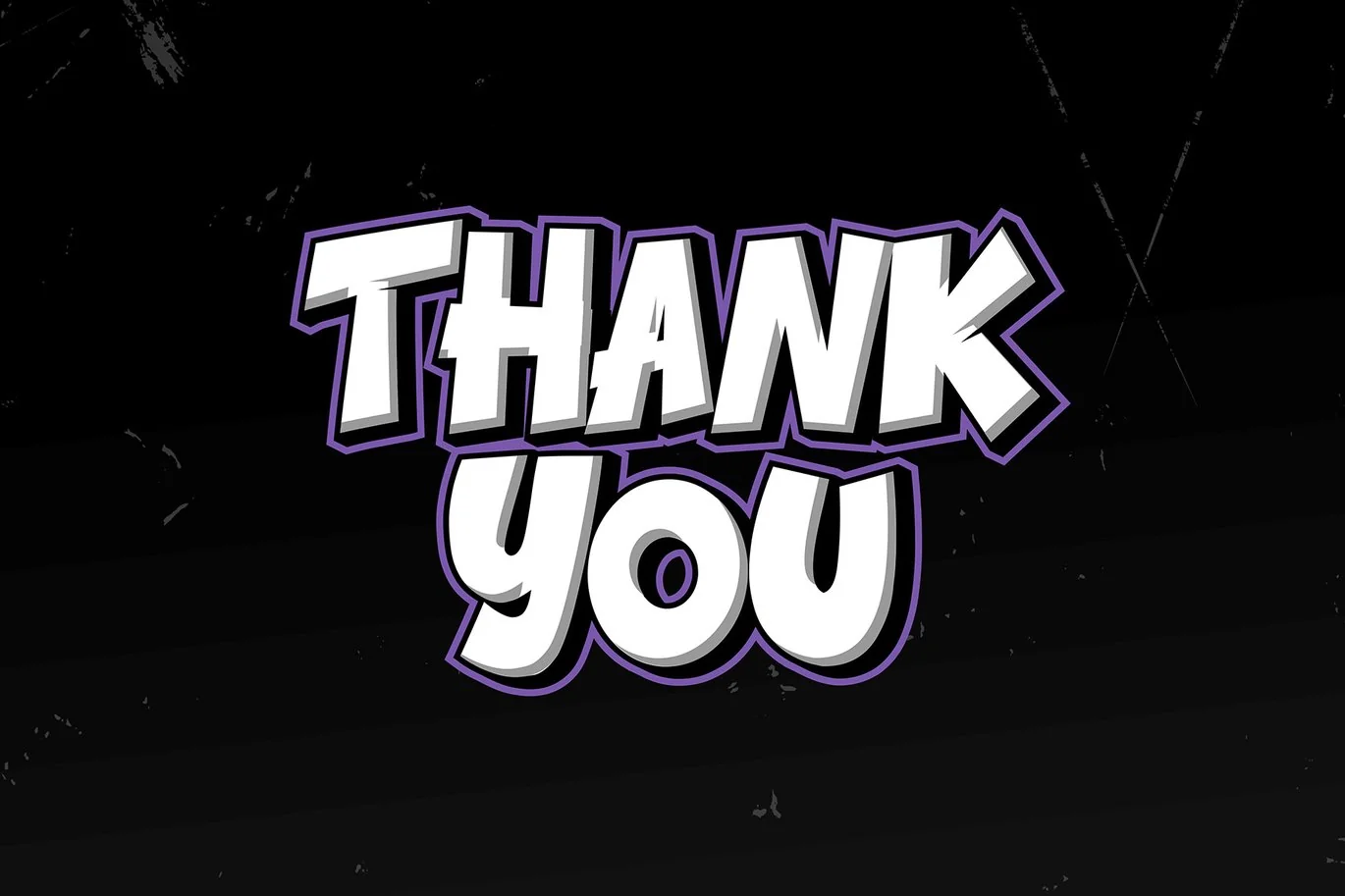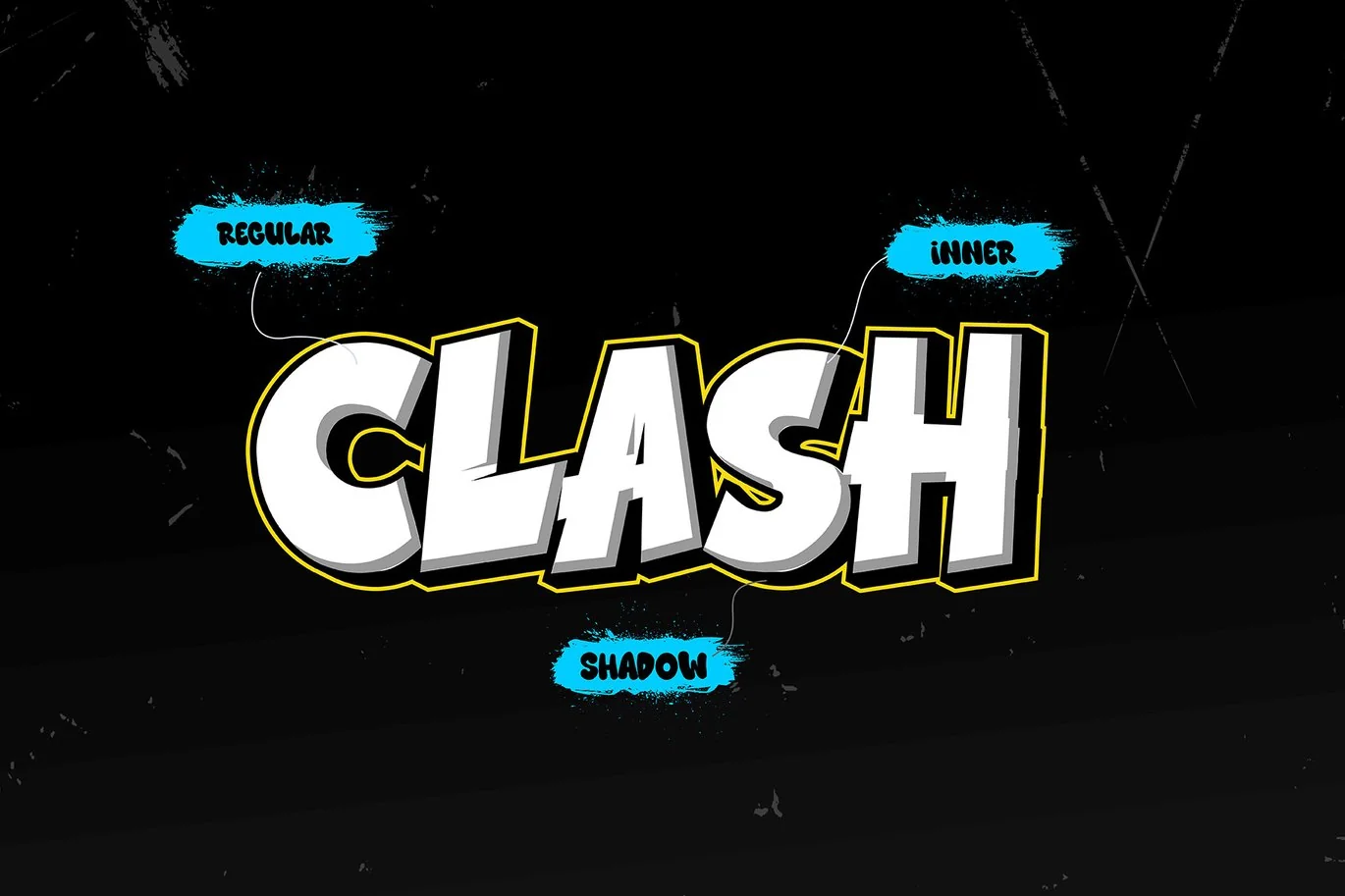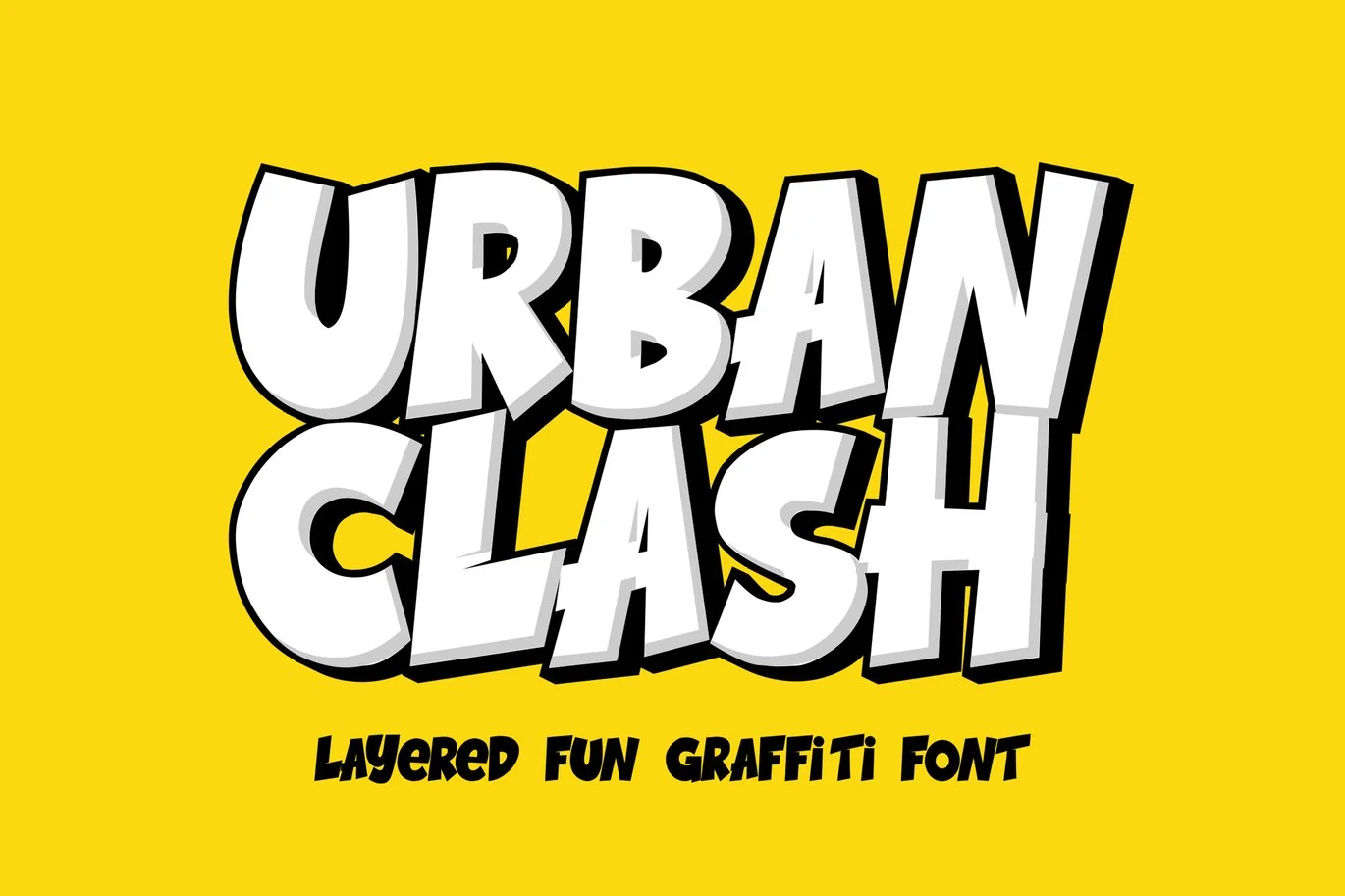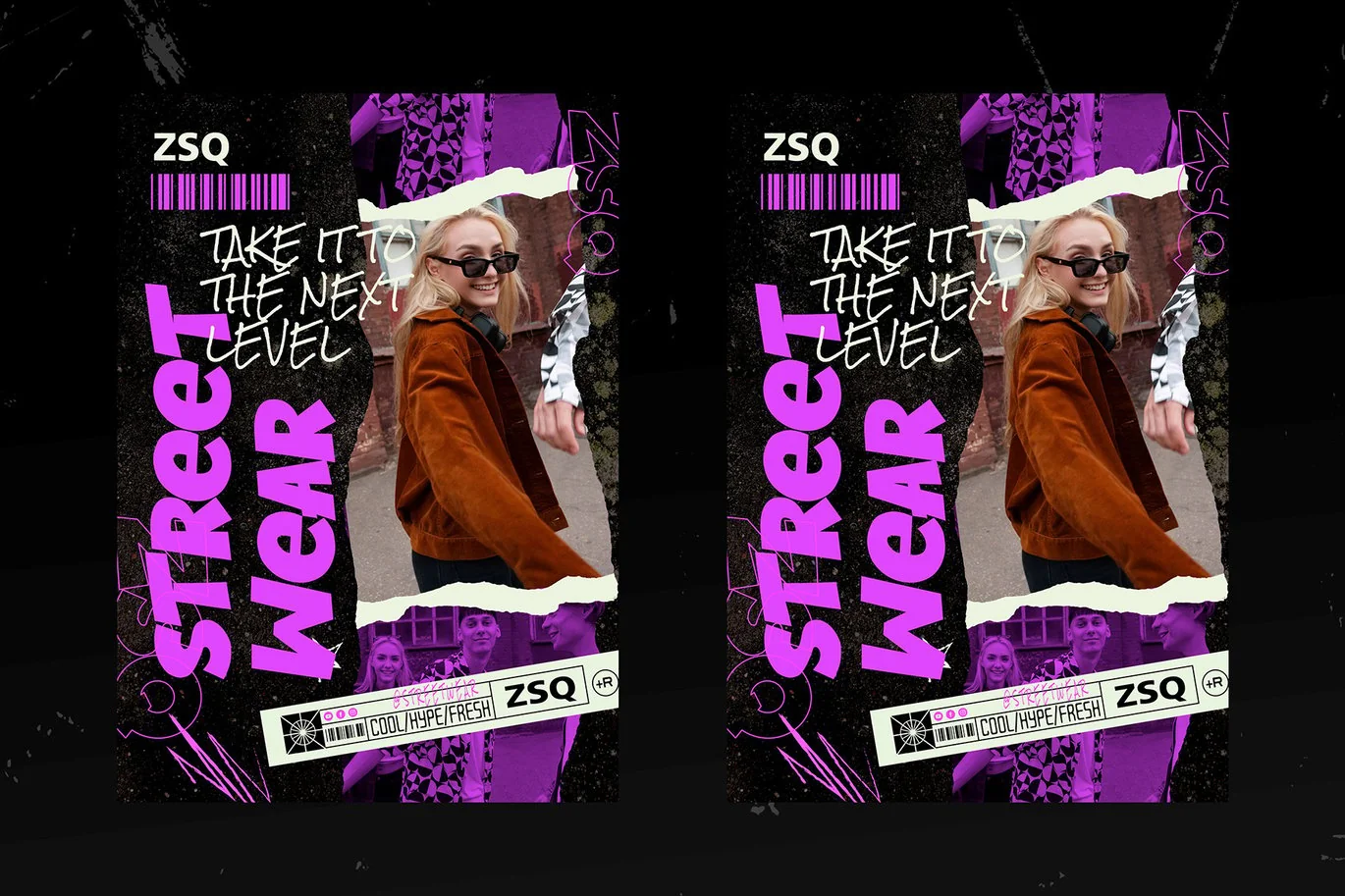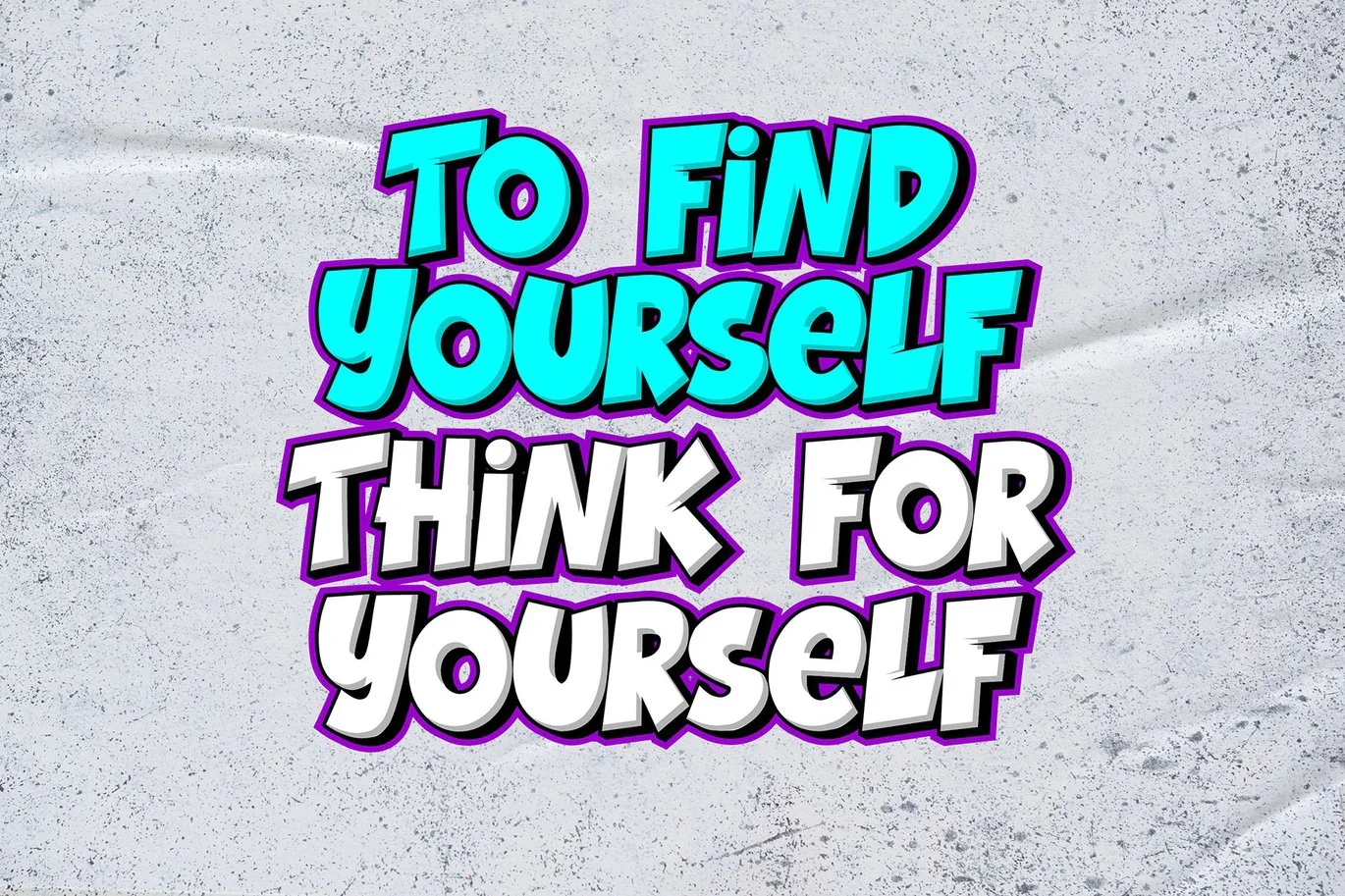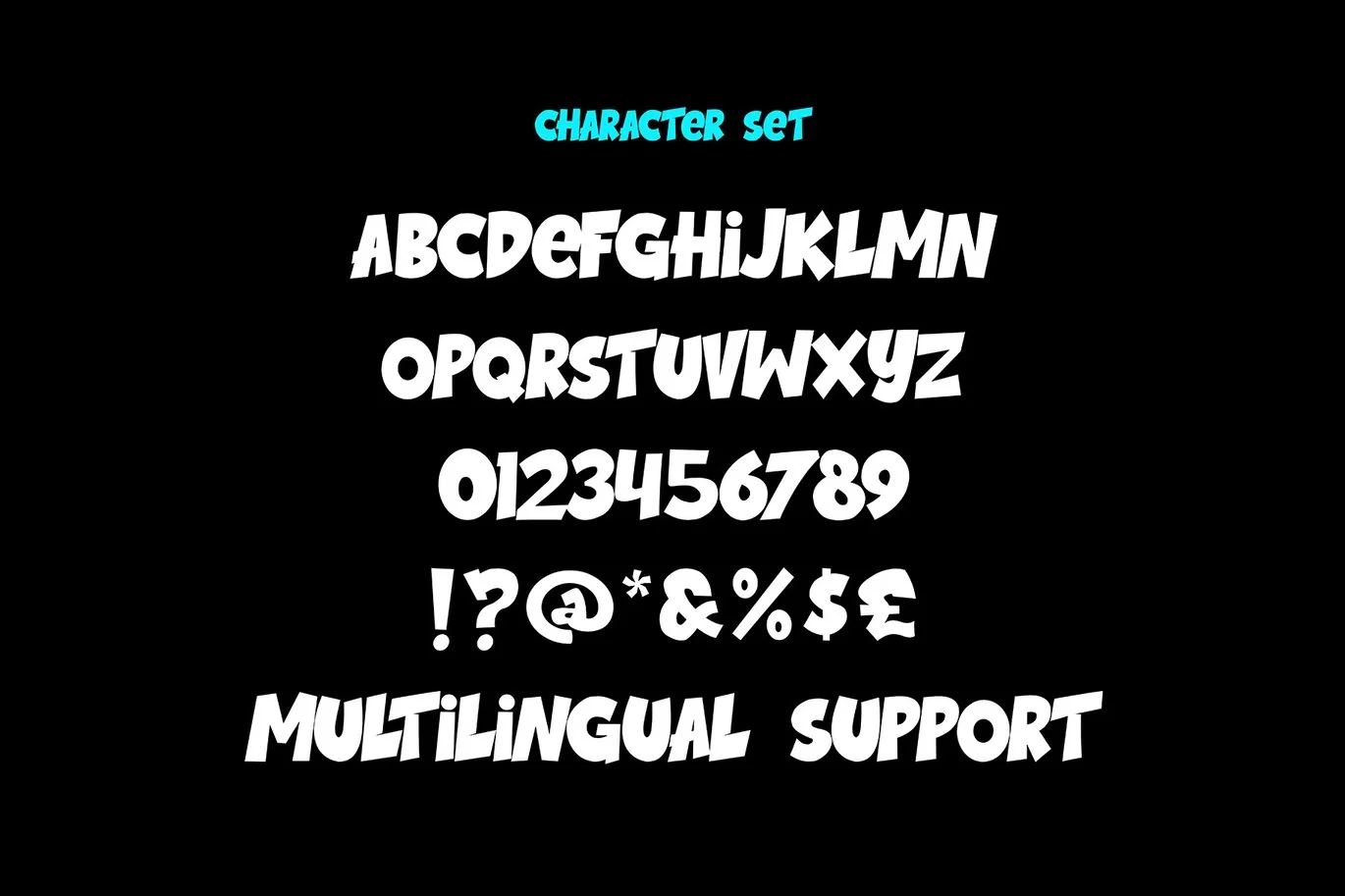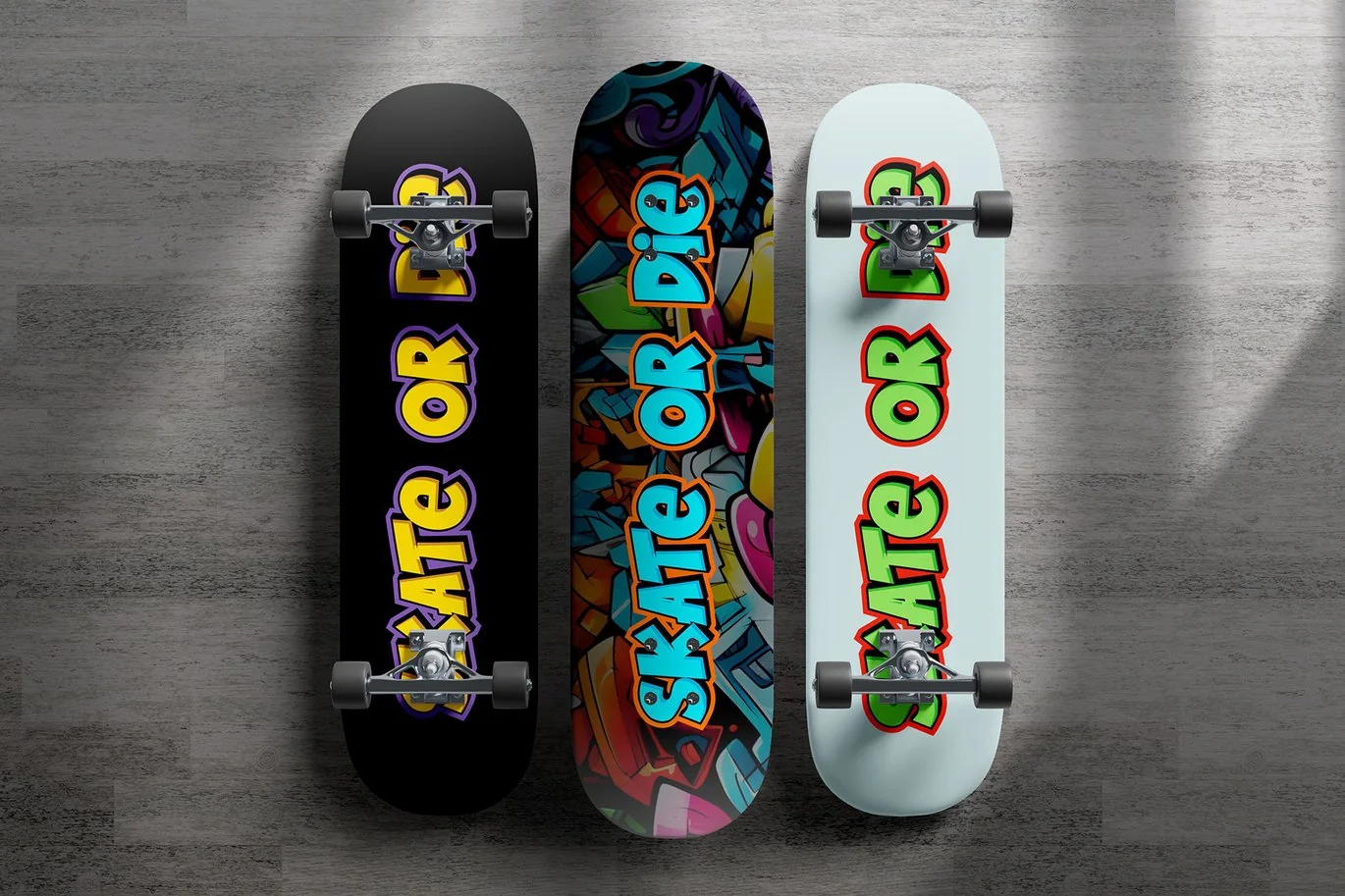
Urban Clash – Layered Graffiti Font
Urban Clash is the ultimate layered graffiti font that captures the raw energy of street art. Designed to stand out, it brings a bold and rebellious vibe to your projects, perfect for making a lasting impression.
� Street Style Authenticity
With its edgy design and detailed layering, Urban Clash mirrors the look and feel of real graffiti. It’s ideal for posters, album covers, banners, and other urban-inspired designs that demand attention.
�️ Versatile Layering
Featuring multiple layers, Urban Clash allows you to create dynamic effects easily. Blend colors and textures to unleash your creativity and design standout visuals with depth and style.
� Bold and Commanding
The bold characters and unique strokes make this font perfect for projects that require a commanding presence, embodying the rebellious spirit of street culture.
Unleash your creativity with Urban Clash and infuse your designs with urban grit and artistic flair!